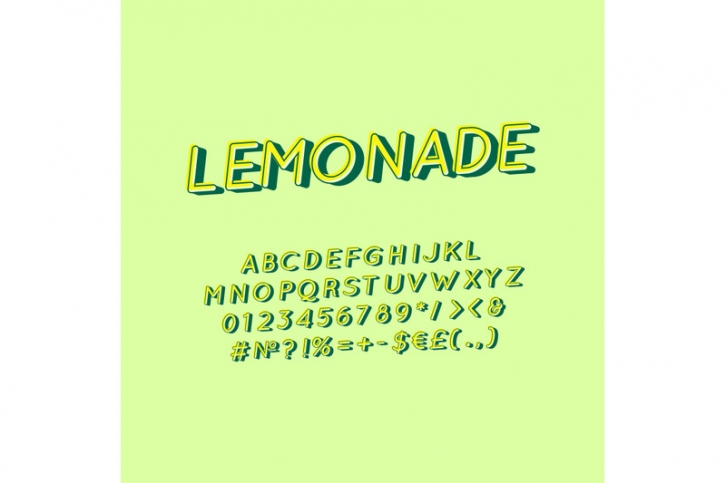
Lemonade vintage 3d vector alphabet set. Retro bold font, typeface. Pop art stylized lettering. Old school style letters, numbers, symbols pack. 90s, 80s creative typeset design template